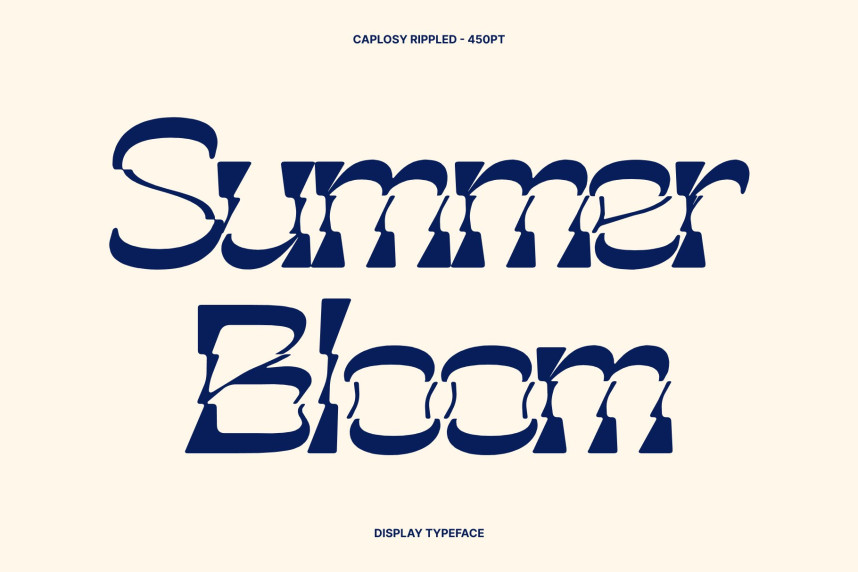
Caplosy Rippled Font
Caplosy Rippled Font– Psychedelic Display Font: Where Retro Funky Meets Fluid Wave Motion
Playful Retro Style with Psychedelic Energy
This font is a psychedelic display font that fuses retro charm with a playful, funky, and expressive design. Its bold letterforms and flowing curves capture the vibrant spirit of vintage psychedelic graphics, creating a lively visual identity full of creativity, freedom, and personality.